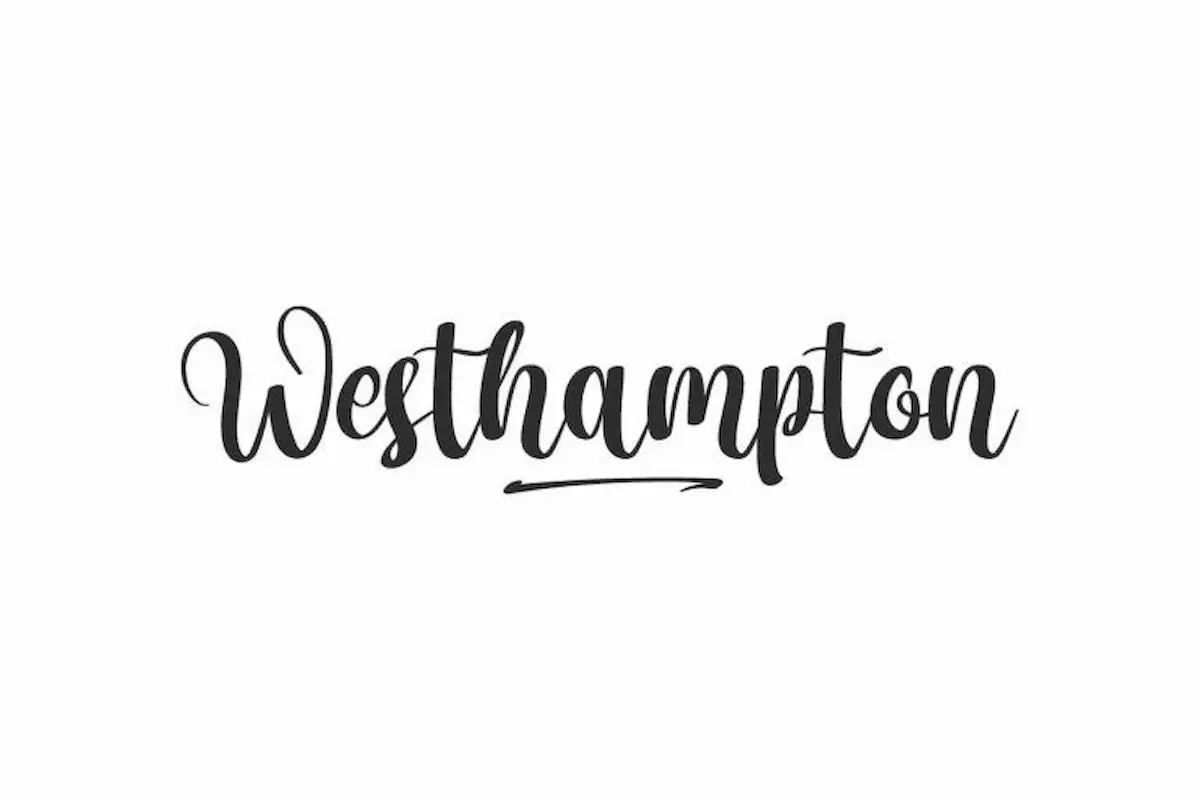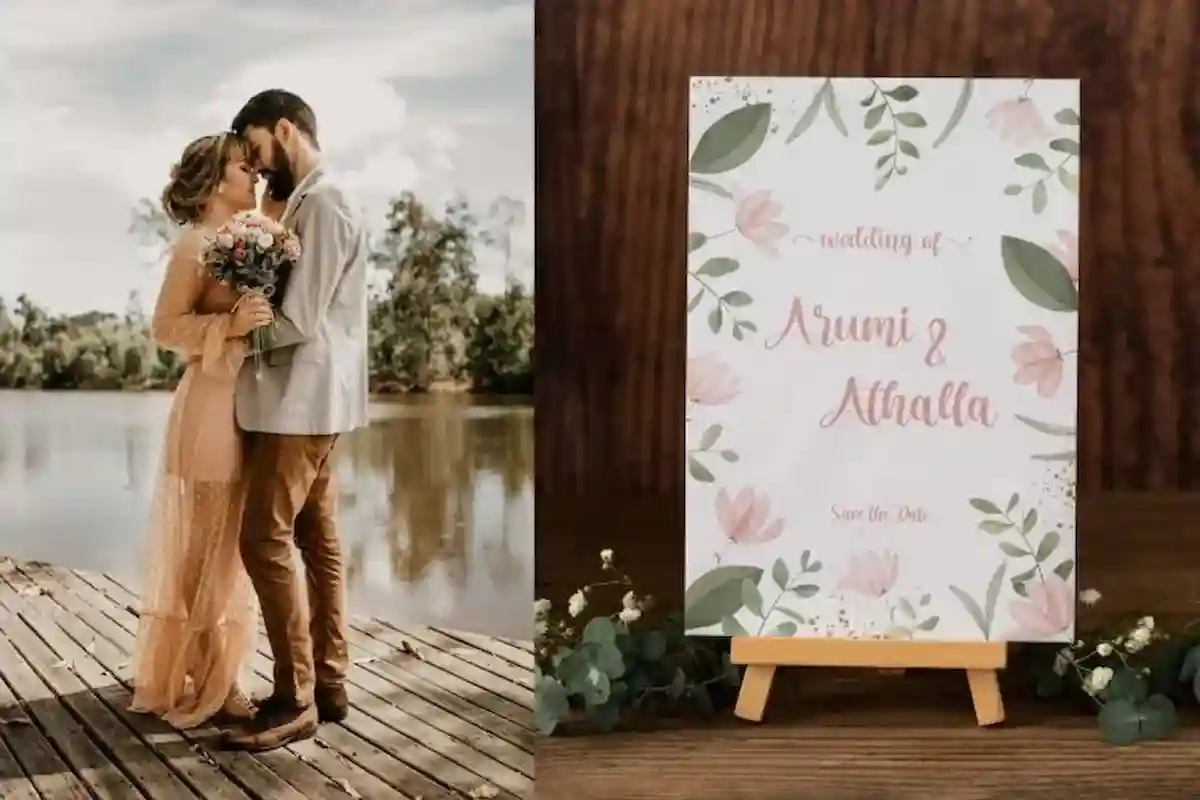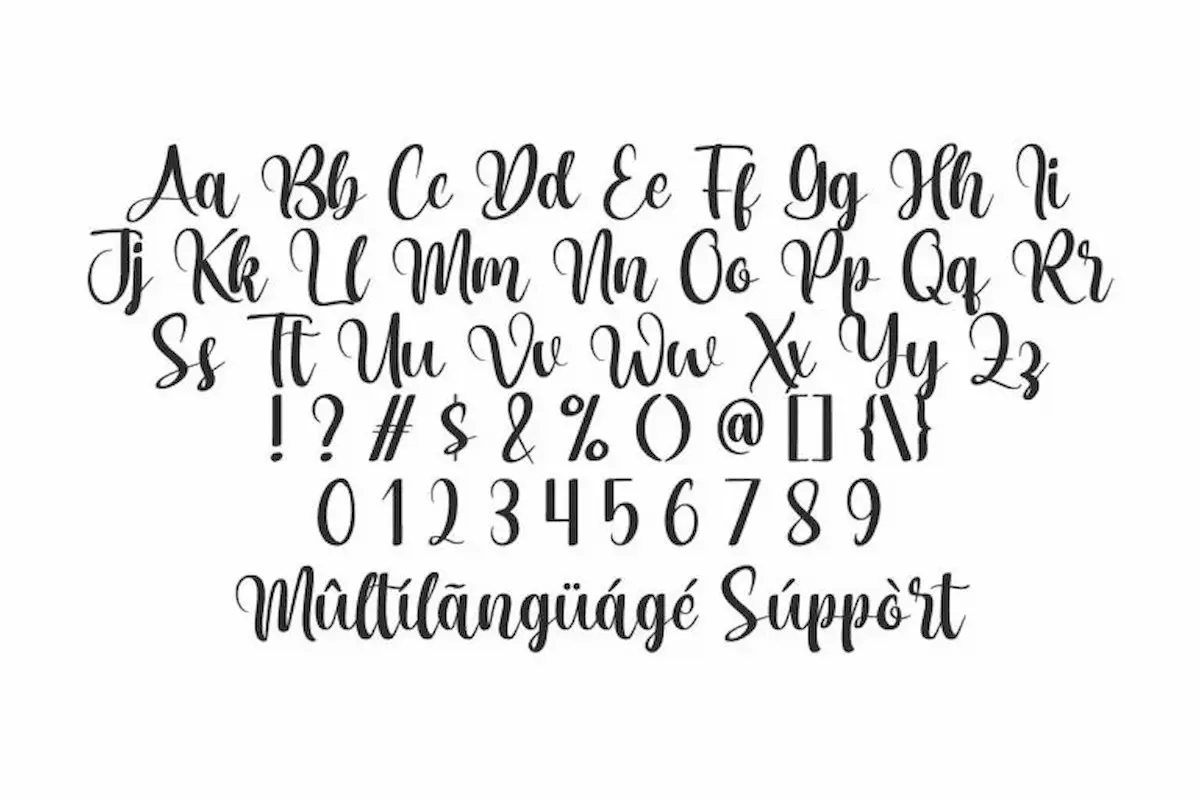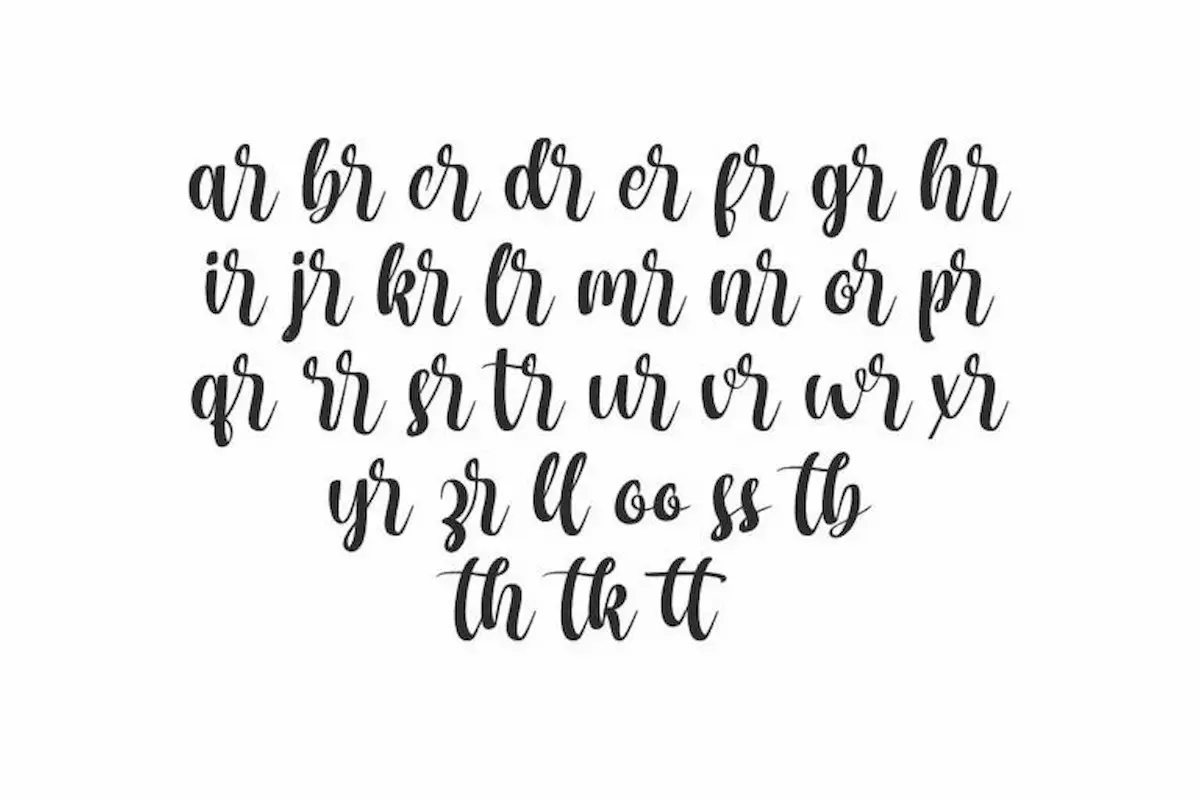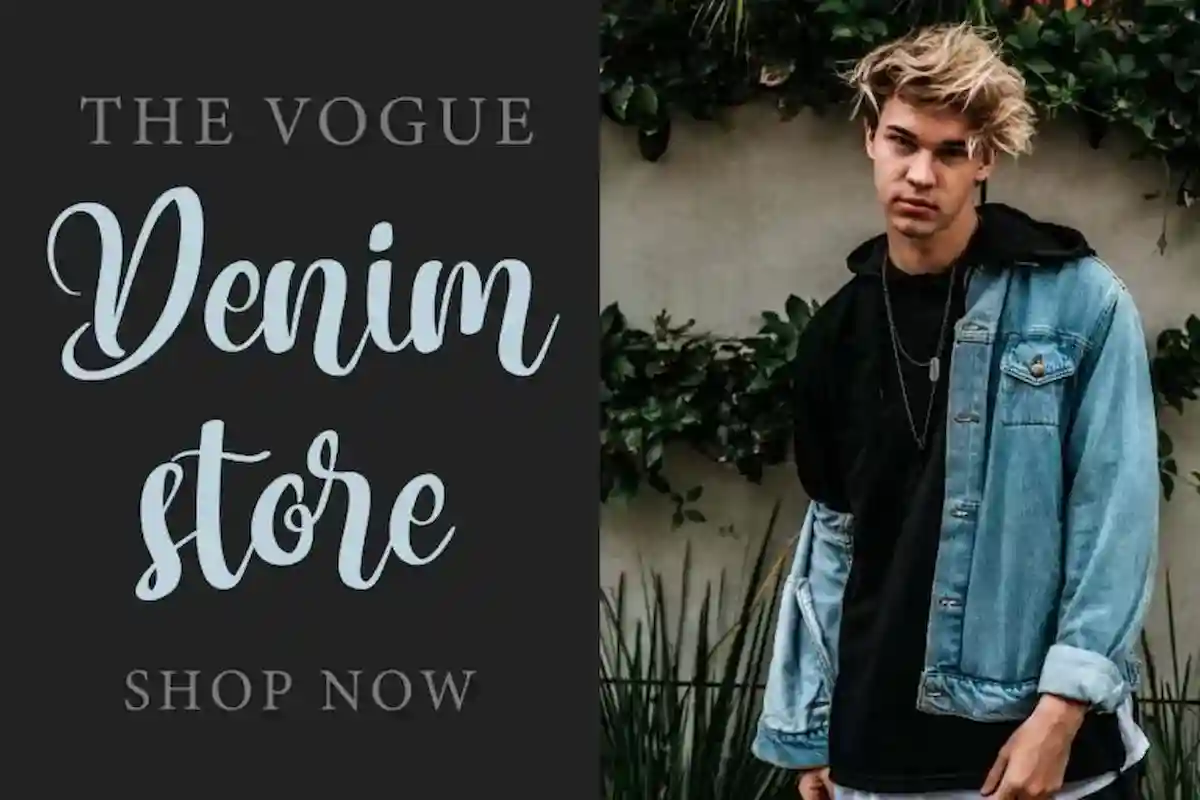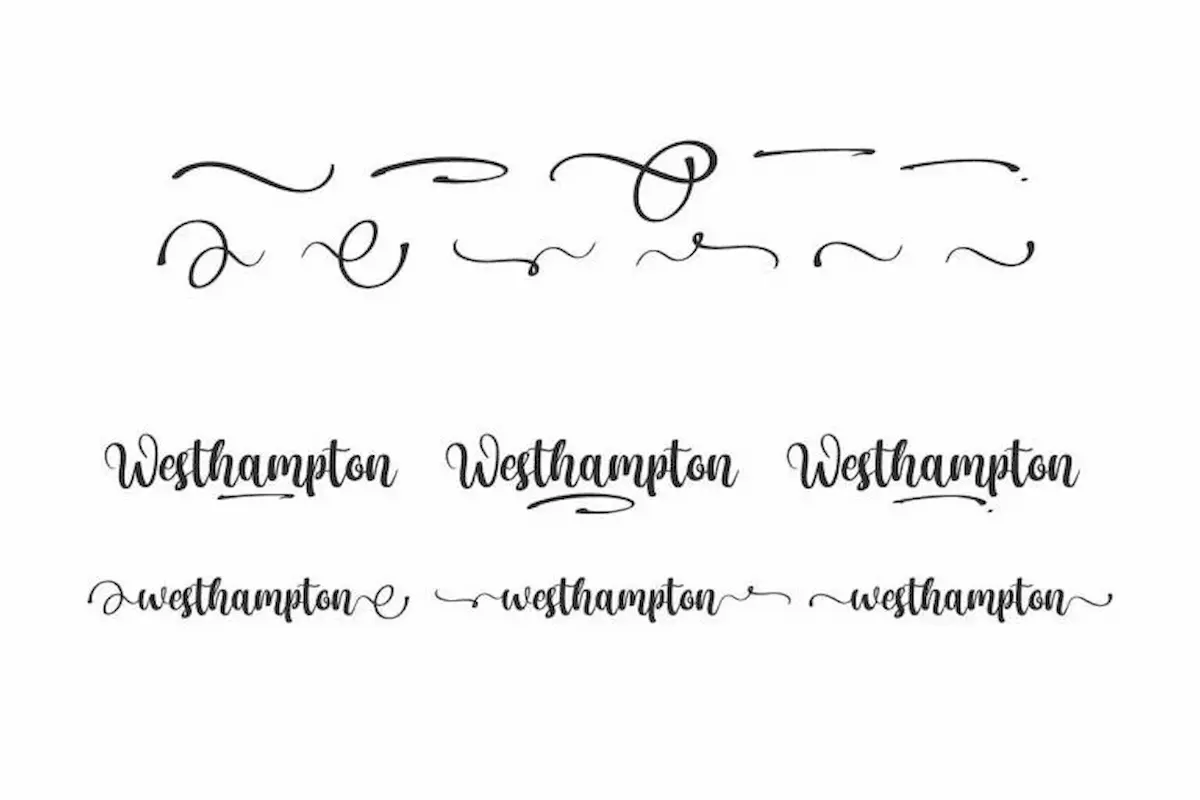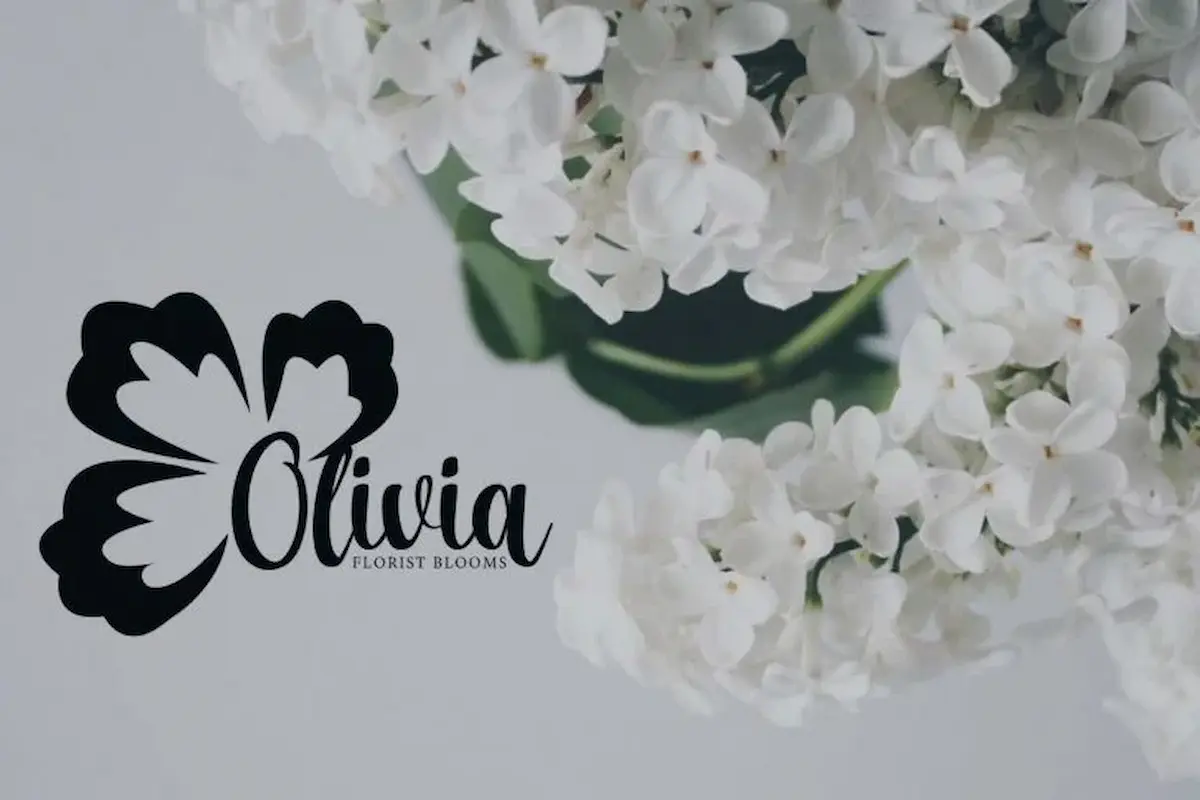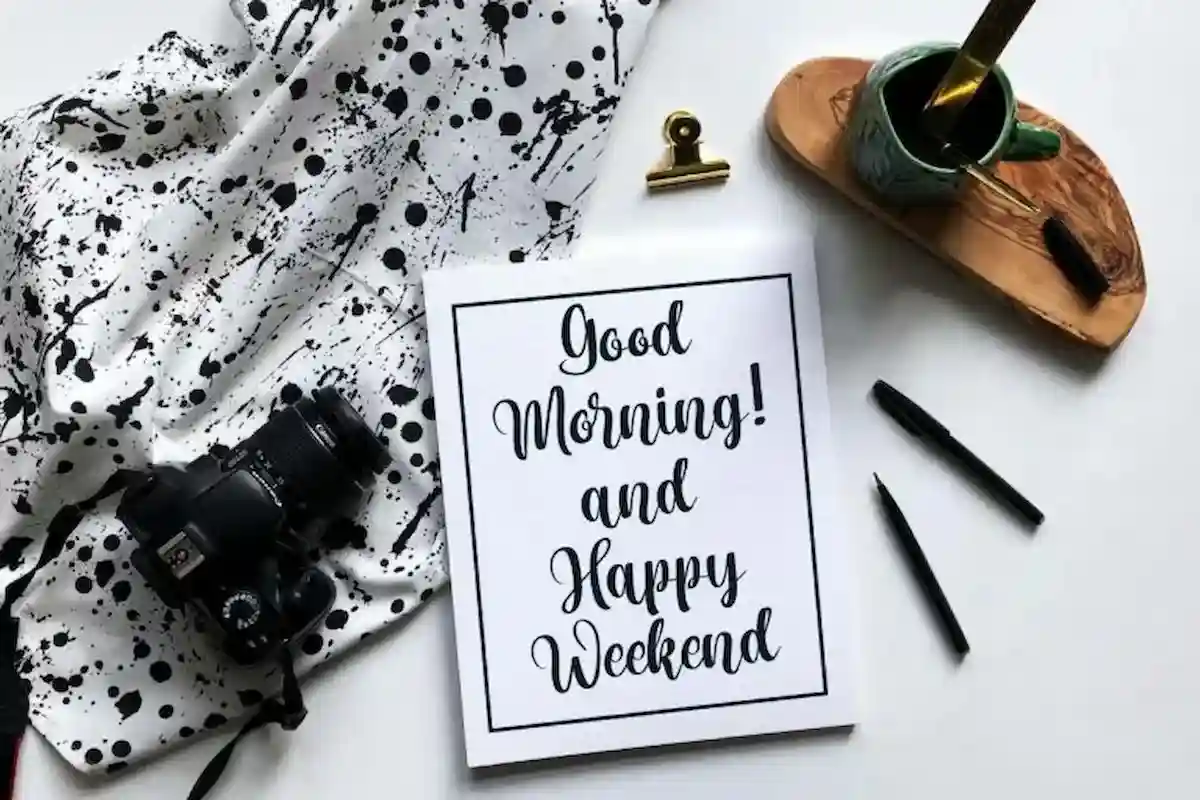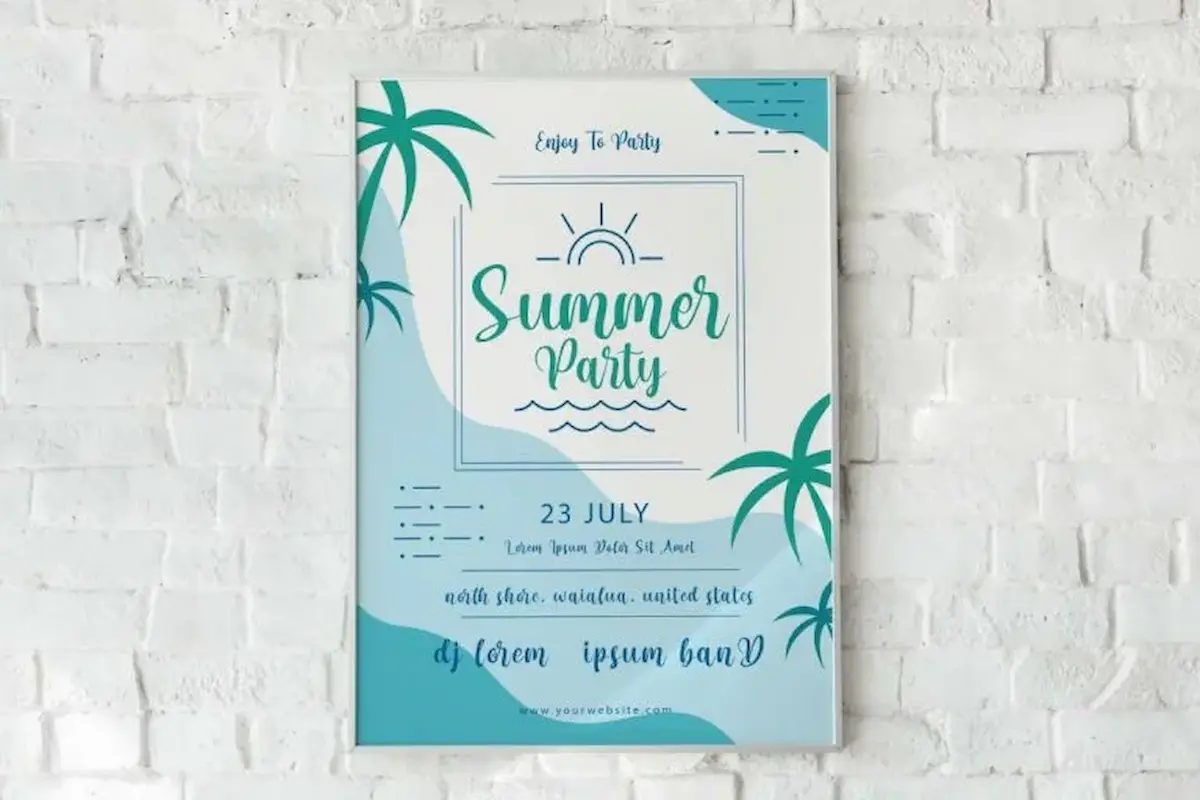
Westhampton Font is a handwriting with brush calligraphy font by NihStudio. Westhampton Font will be great for branding, wedding, professional, video, invitation etc
Westhampton Font is a script font by NihStudio. Try the font by typing your own text below. Please note that the test font below is a demo file, so some specimens/ characters will not show up. This stunning Calligraphy Font script was made in Indonesia 2021 by Our Font Designer : Widi and Sarah.
Westhampton Font will be awesome for many projects (some require extended license) including : branding, logo, stationery, business card, signage, flyer, brochure etc. The theme style of the font is elegant, handmade, old, casual, vintage, stylish, sophisticated and classic brush style. The font will be match for this typeface: wedding, events, florist, gardening, makeup artist, travel, hotel, musician etc